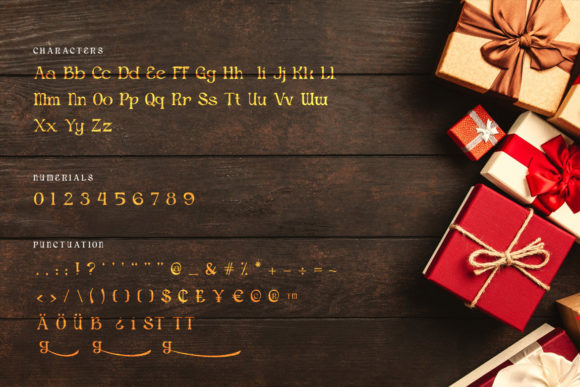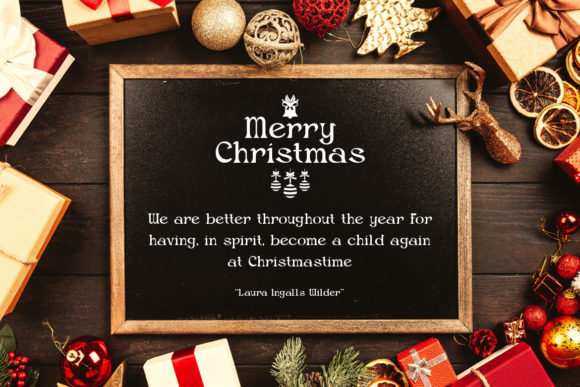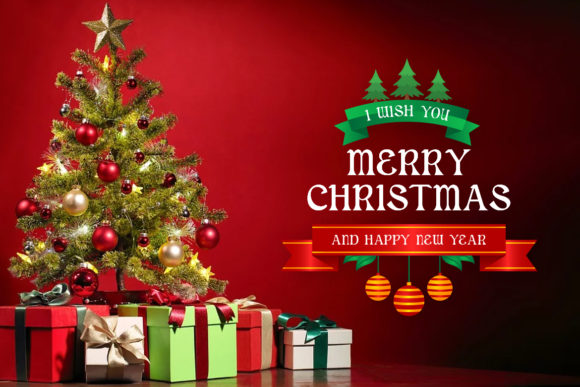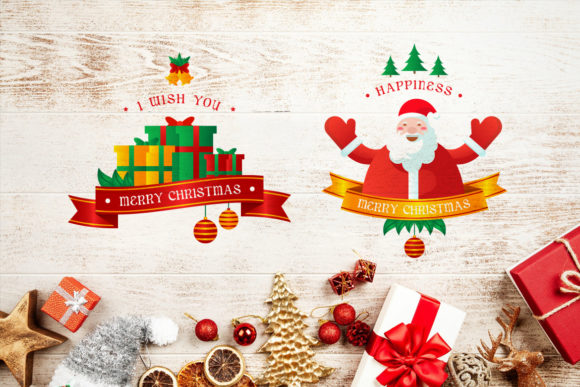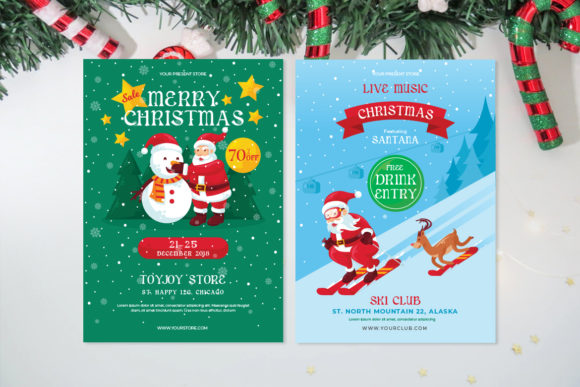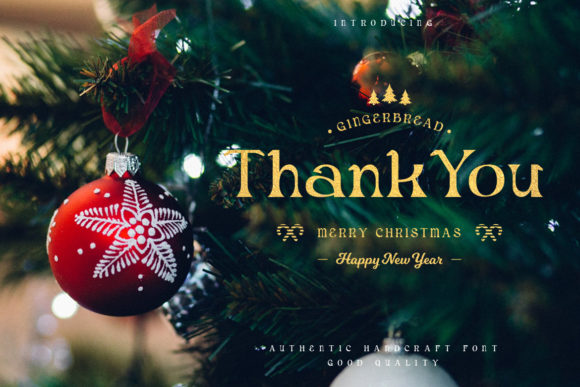
The Sweetest Addition to Your Design: Gingerbread Font
You know that moment when a single element elevates your entire design from meh to mesmerizing? For me, it’s the perfect font. It’s like the icing on the cake, the cherry on top, or in this case, the sprinkle of magic on your gingerbread house. When I stumbled upon the Gingerbread Font, I knew I had to share it with the world. This unique serif font exudes a festive vibe that’s perfect for the holiday season or any time you want to add a touch of whimsy to your designs.
As a designer, you’re always on the lookout for fonts that will set your projects apart. The Gingerbread Font is a valuable addition to your toolkit, offering a one-of-a-kind look that’s sure to delight your audience. Whether you’re creating a festive holiday card or a fun promotional campaign, this font is sure to make your designs stand out from the crowd.
Gingerbread Font Key Features
- Unique Characteristics: The Gingerbread Font features a unique, hand-drawn design with a warm and inviting tone, making it perfect for use in baking and food-related applications.
Gingerbread Font Review
I recently had the chance to work with the Gingerbread Font, and I must say it’s a unique addition to any design project. ✨ The font’s playful, whimsical feel is perfect for adding a touch of warmth and personality to your work.
Here are some of the things that I think work particularly well:
- The font’s intricate details and ornate flourishes add a level of sophistication and elegance to any design.
- The font is highly customizable, allowing you to adjust the color, size, and style to fit your needs.
- The font is also highly versatile, making it suitable for a wide range of projects, from marketing materials to wedding invitations.
- ⚠️ The font can be quite dense and overwhelming, so be careful not to overuse it in a single design.
- ⚠️ The font’s intricate details can make it difficult to read at smaller sizes, so be sure to test it at various scales before using it in a production design.
Overall, I think the Gingerbread Font is a great choice for designers who want to add a touch of personality and whimsy to their work. While it may have a few limitations, the benefits far outweigh the drawbacks, and I would definitely recommend it to anyone looking to spice up their design portfolio.
Tips for Getting the Most Out of Gingerbread Font
Use the Gingerbread font in combination with festive colors and graphics to create a cohesive holiday design.
Experiment with different font sizes and styles to add visual interest to your design.
Consider using the Gingerbread font in conjunction with other festive fonts to create a unique and eye-catching design.
The Gingerbread font is perfect for:
Creating festive holiday designs, such as Christmas cards and gift tags.
Designing holiday-themed social media graphics and ads.
Adding a festive touch to presentations and reports.